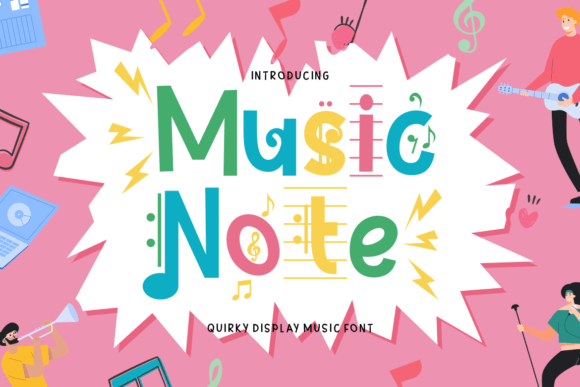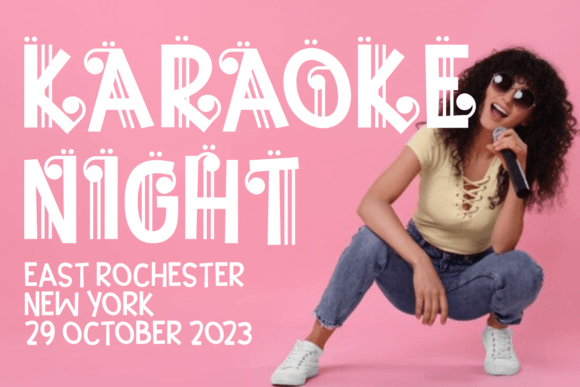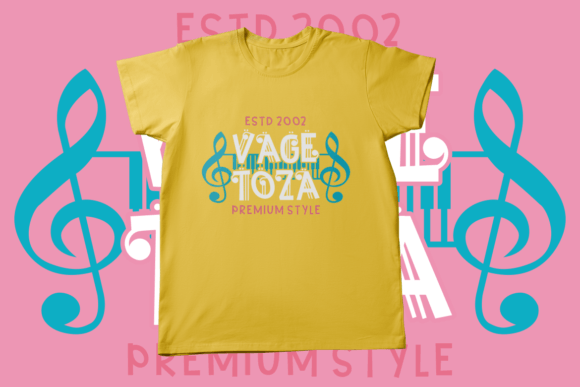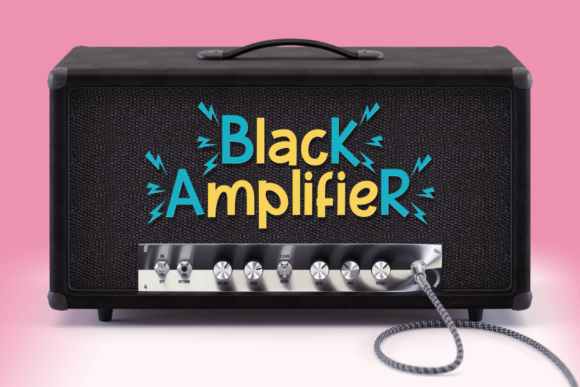
Music Note Font: A Playful Display Font for Craft & Cricut Projects!
About the Music Note Font
The Music Note Font is here to transform your projects with its distinctive character and style. Music Note is a quirky display music font that captures the fun and whimsy of musical themes. This font is a perfect blend of musical notes, instruments, scales, rhythm, and tempo, designed with a childlike spirit and a crafter’s touch. With 9 unique variations to suit different musical styles, Music Note is as versatile as it is charming.
Whether you are creating a logo, branding, a children’s theme, a crafting project, an invitation card, a packaging design, a poster, a title, a business identity, a greeting card, a sticker, a children’s book, or a magazine layout, Music Note will add a touch of musical magic to your design. Each letter dances with rhythm and melody; every stroke resonates with the harmonious tunes of joy.
Music Note Font Usage Examples
Music Note Font Example